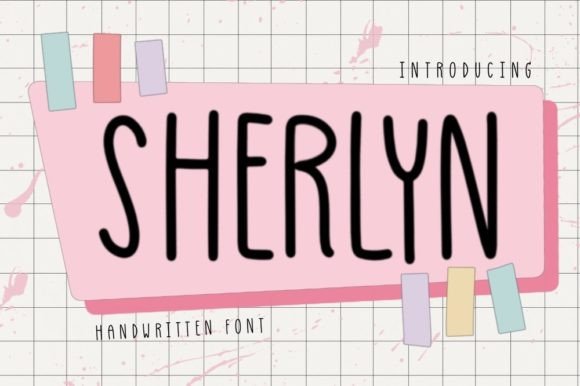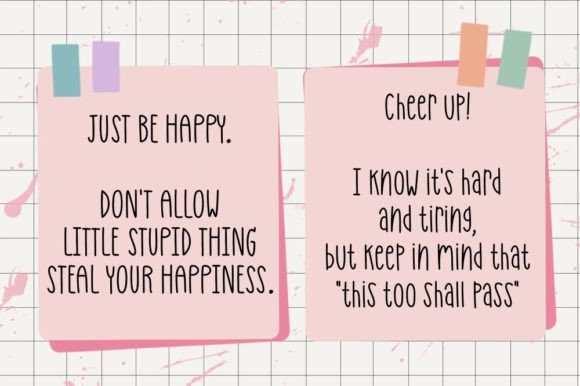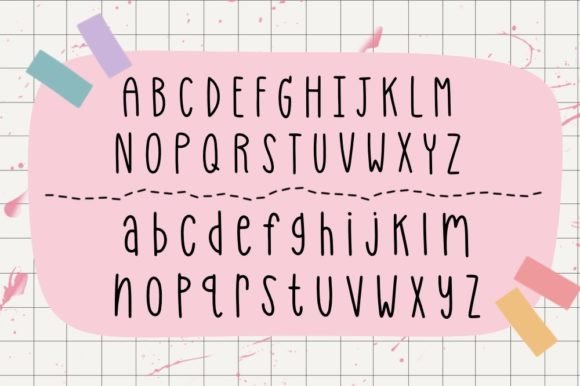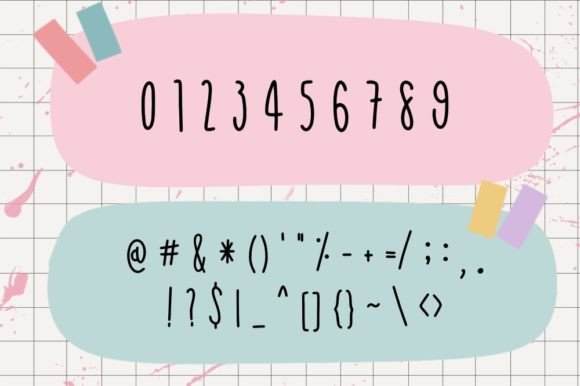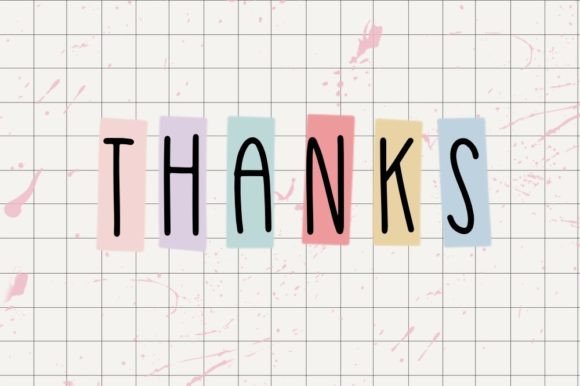
Sherlyn Font
About Sherlyn Font
**Sherlyn – Cute and Sweet Handwritten Font for Every Occasion**
Sherlyn is a delightful handwritten font that brings sweetness and charm to your projects. Here’s why Sherlyn is the perfect choice for a wide range of occasions:
1. **Charming Handwriting:** Sherlyn emulates the charm of handwritten script, making it ideal for projects that require a personal and friendly touch.
2. **Versatile Usage:** This font is highly versatile and suits various design applications, from making notes and crafts to digital design, presentations, titles, and greeting cards.
3. **Crafting and DIY:** Use Sherlyn to add a handmade feel to your crafting and DIY projects, such as scrapbooking, homemade cards, and personalized gifts.
4. **Digital Design:** Sherlyn works seamlessly in digital design projects, enhancing your graphics, blog posts, social media content, and more with its inviting and approachable style.
5. **Presentations:** Make your presentations more engaging and relatable by incorporating Sherlyn for titles, headers, and emphasis on key points.
6. **Greeting Cards:** Create heartwarming and visually appealing greeting cards for various occasions, from birthdays and holidays to thank-you cards and special announcements.
7. **Notetaking:** Sherlyn’s legible yet charming style makes it an excellent choice for taking notes, jotting down ideas, or adding personal touches to your written content.
8. **Friendly and Approachable:** Sherlyn’s friendly appearance makes it an excellent font choice for projects that aim to connect with the audience on a personal level.
9. **Invitations:** Design invitations for parties, events, or special occasions with Sherlyn to set a warm and inviting tone for your guests.
10. **Title Design:** Whether for blog post titles, article headings, or website headers, Sherlyn adds a touch of whimsy and approachability to your titles.
11. **Cuteness Factor:** The font’s cuteness factor makes it particularly suitable for children’s projects, baby announcements, and any designs that require a touch of innocence and playfulness.
12. **Consistent Style:** Sherlyn maintains a consistent style throughout various applications, ensuring that your designs maintain a cohesive and charming look.
Sherlyn is a font that brings joy and a personal touch to your creative projects. Its versatility and sweet handwritten style make it a go-to choice for designers, crafters, and anyone looking to add a delightful and approachable element to their work. Whether it’s adding a personal note or creating memorable designs, Sherlyn is the font that can do it all with flair and charm.